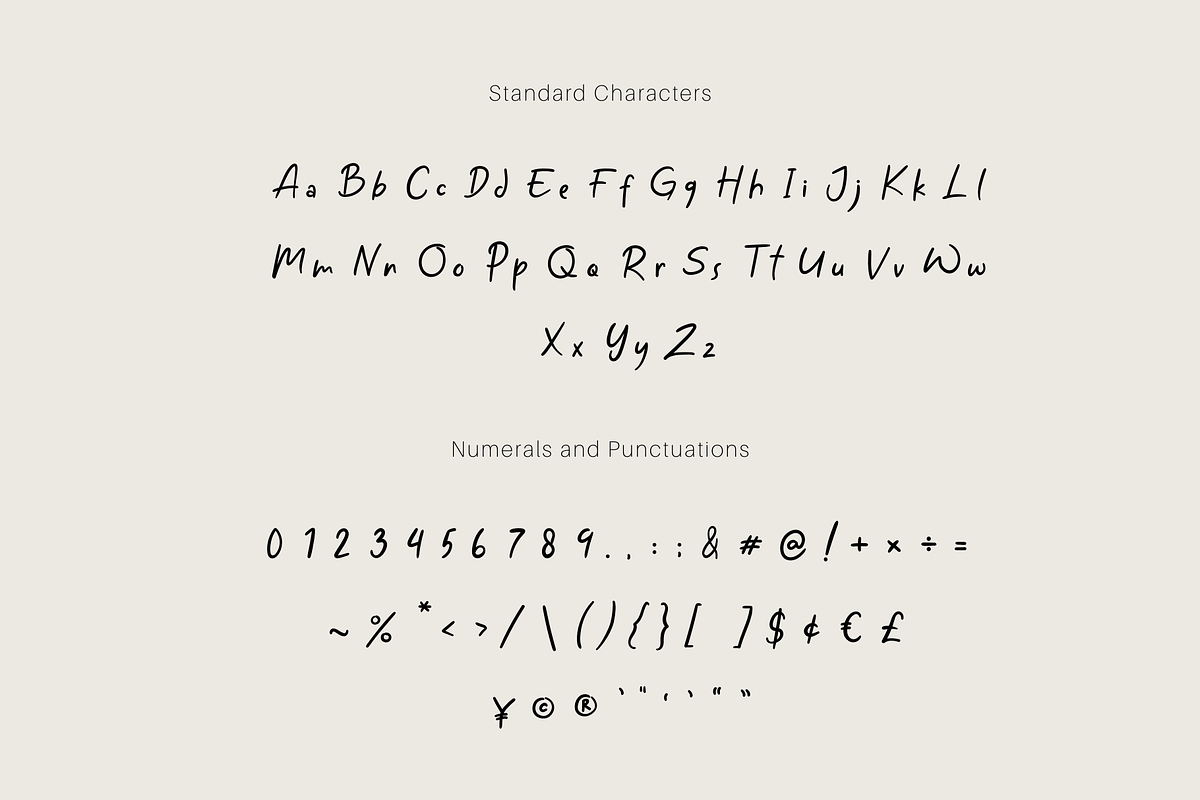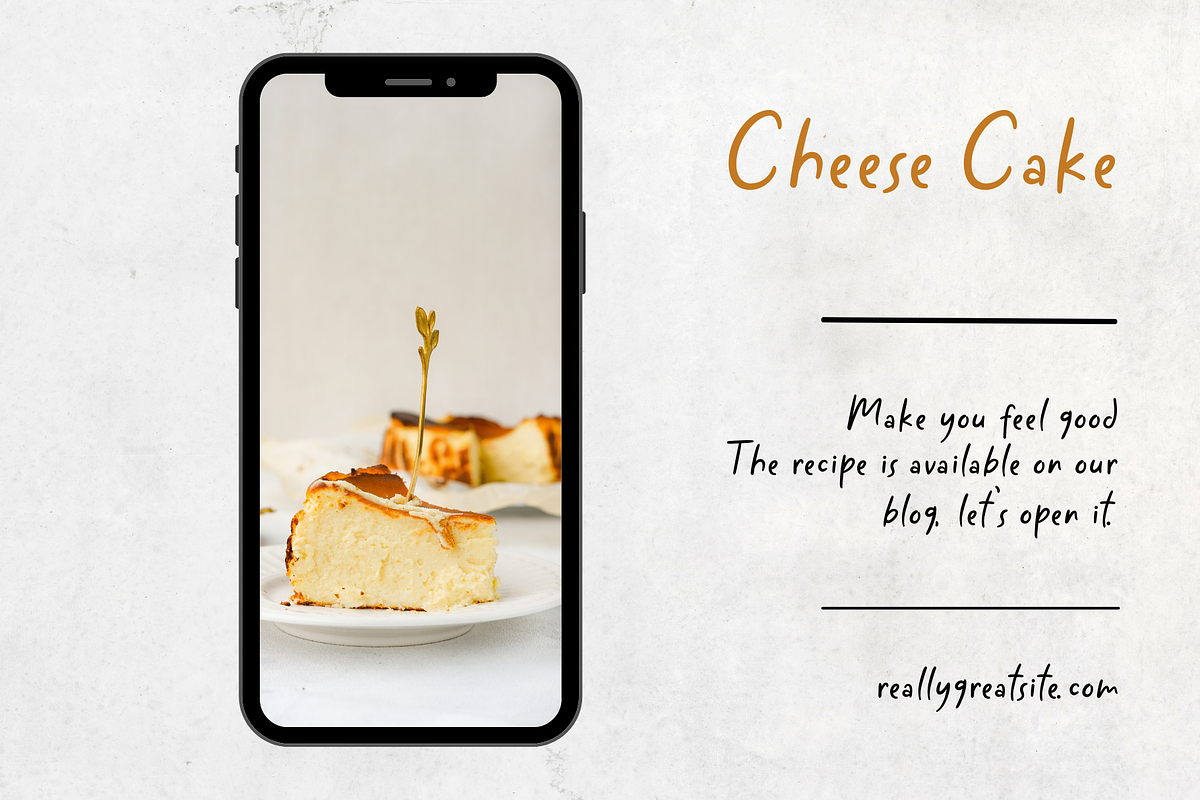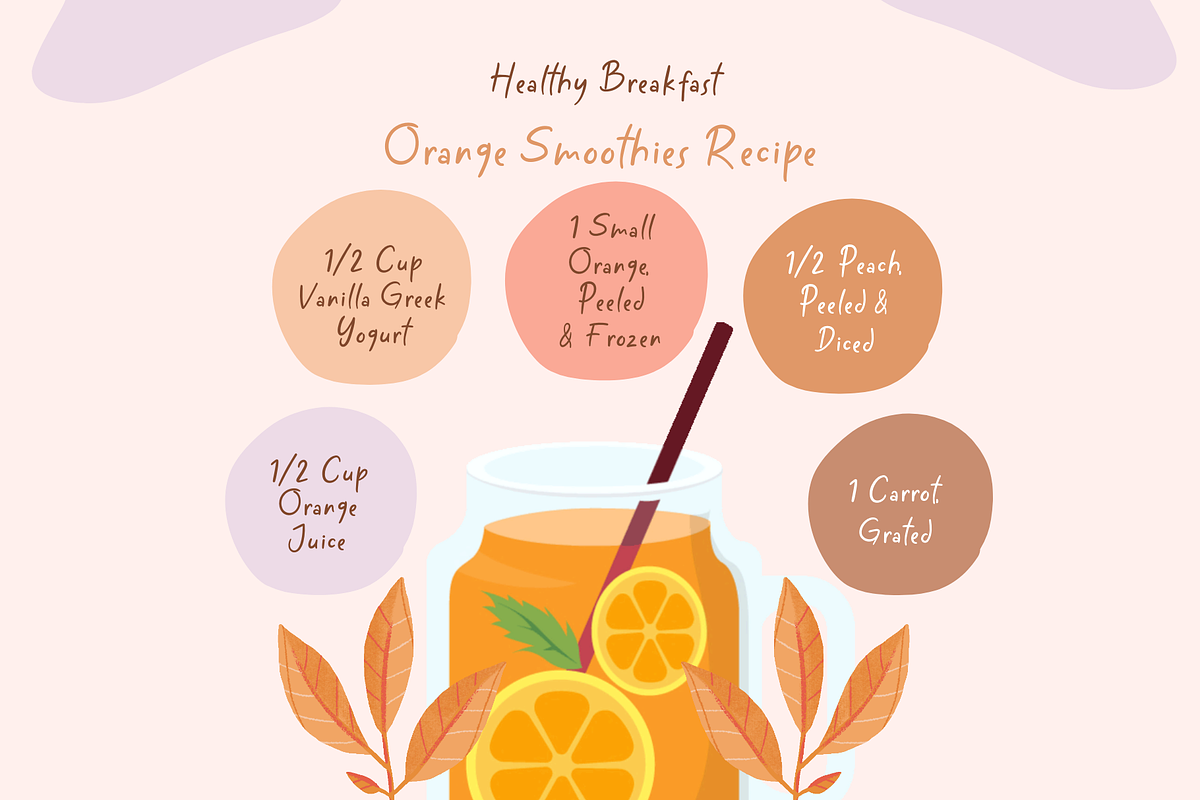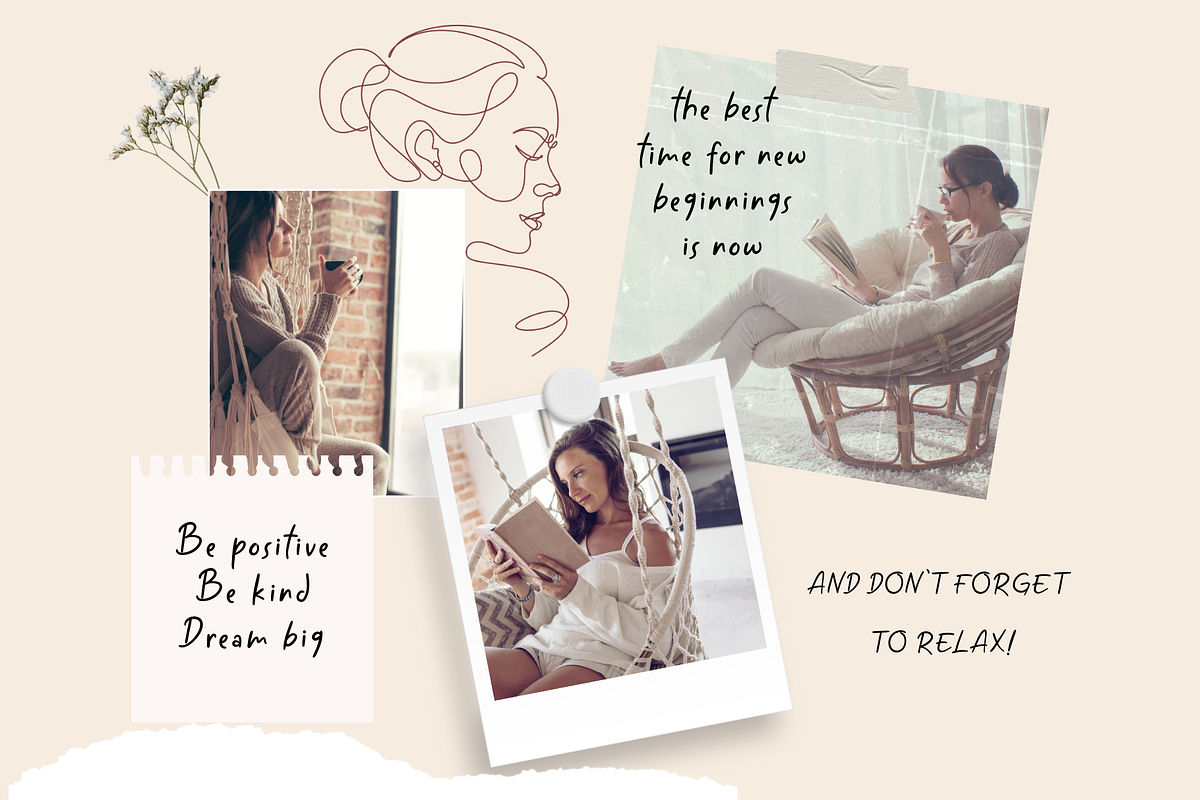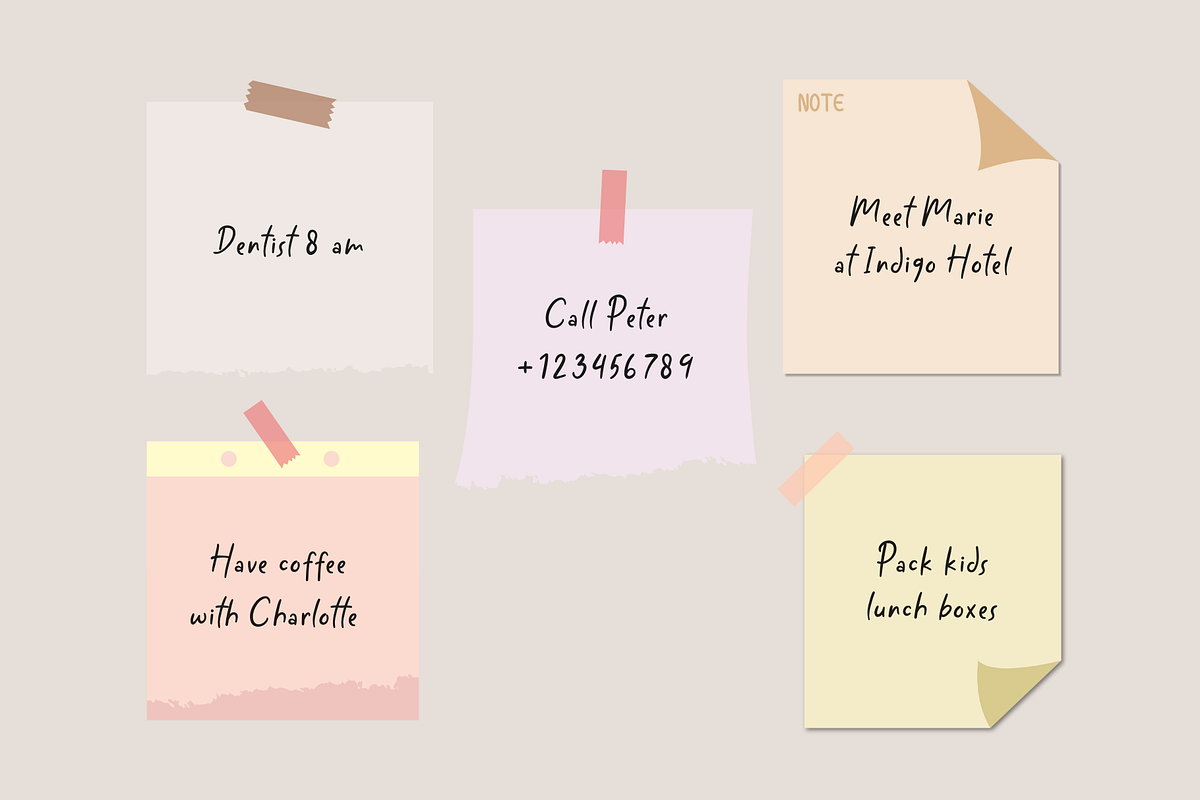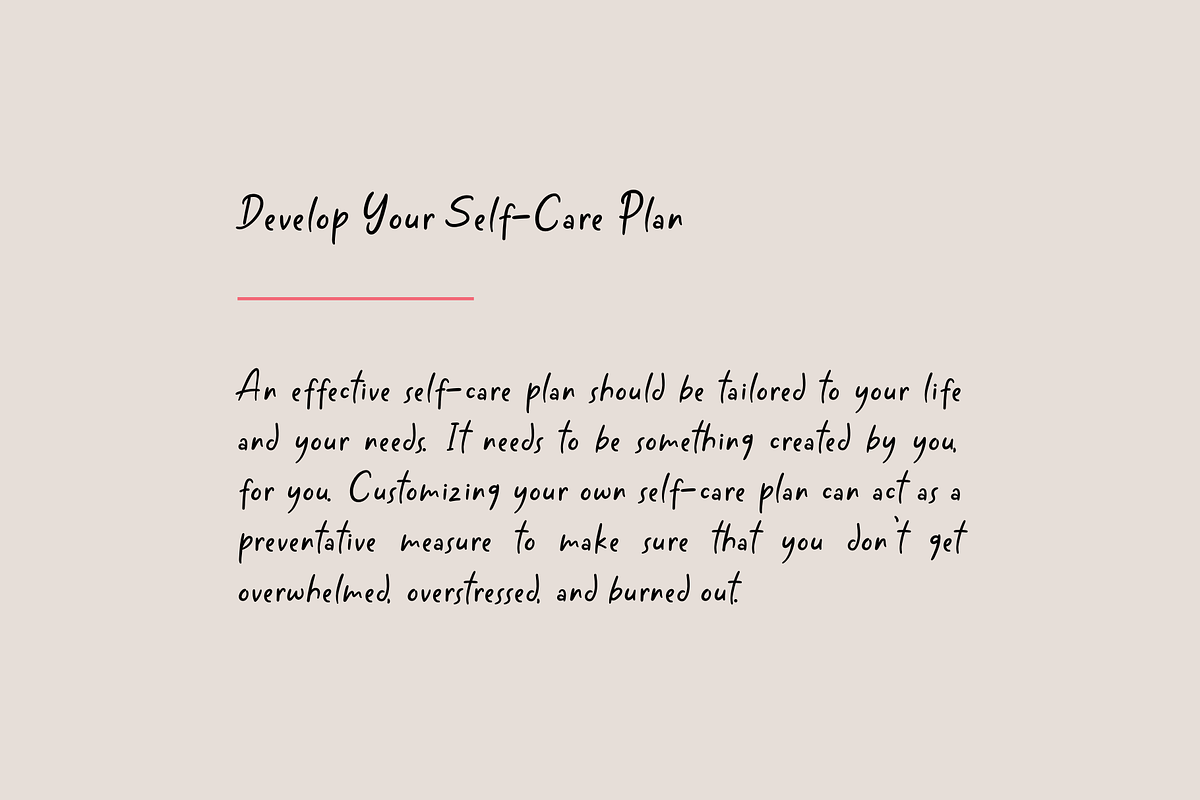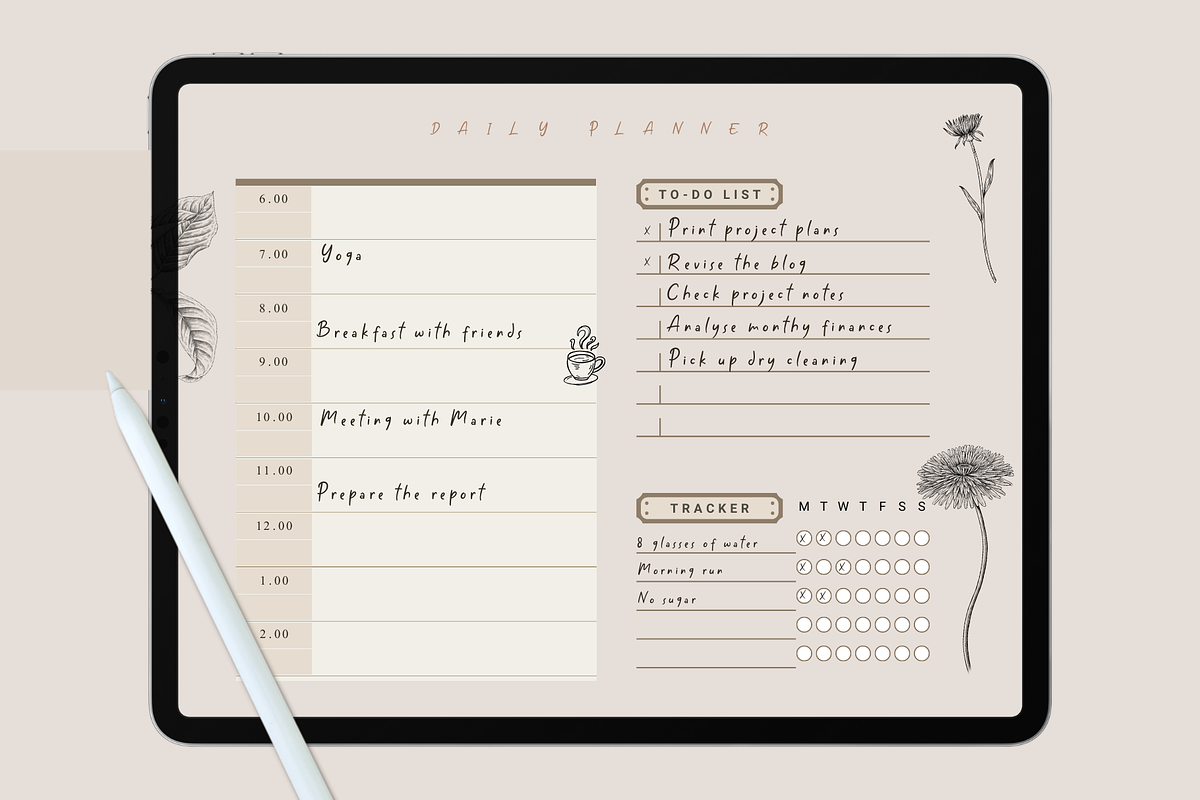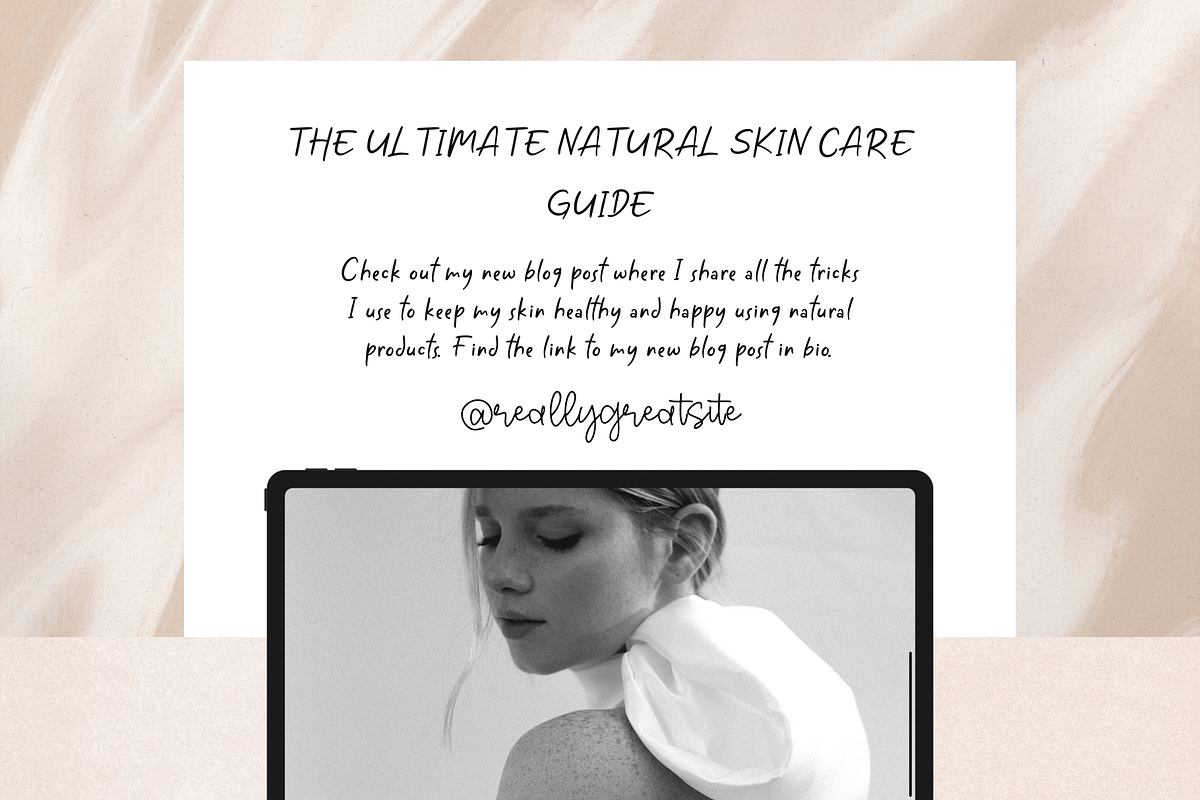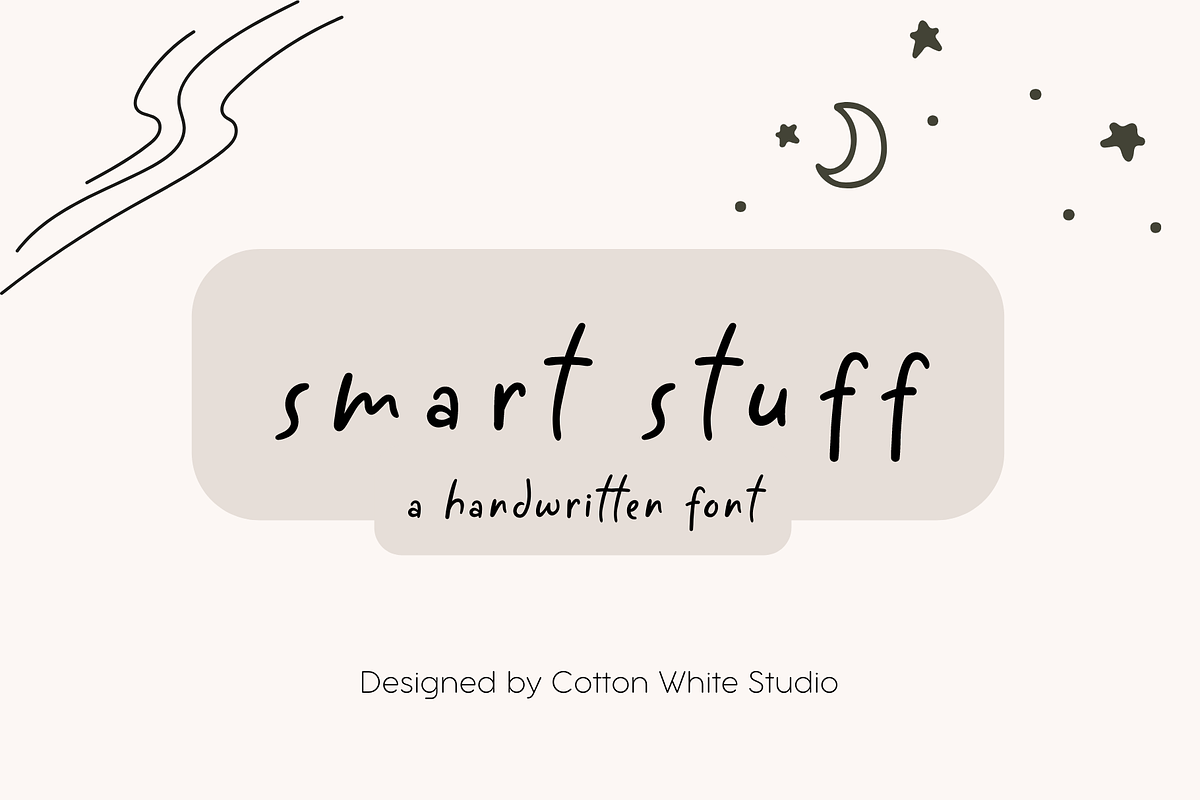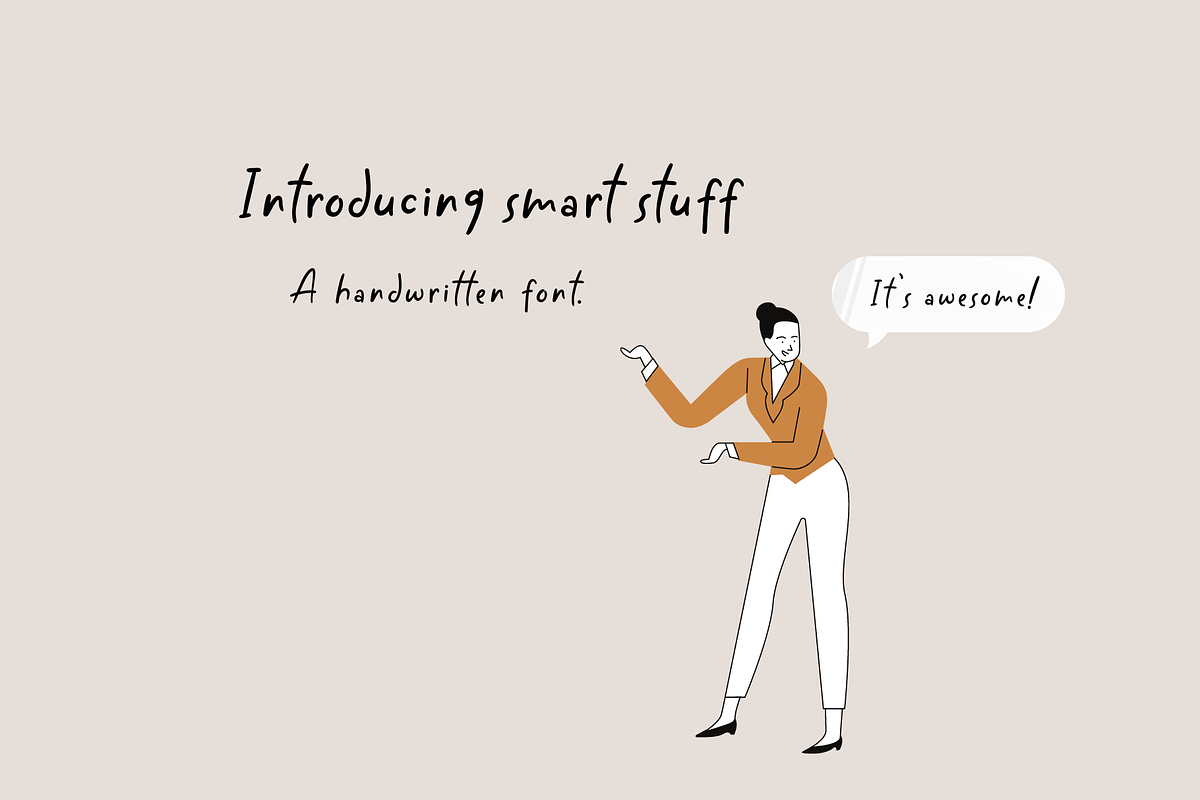
Smart Stuff
Add some sweetness to your designs with this adorable font! It's perfect for any project that needs a touch of whimsy and charm. From greeting cards and invitations to social media graphics and branding materials, our cute font will bring a playful energy to your work. This font is also prefect to spice up your digital notes! With its playful curves and delightful details, this font is sure to make your designs stand out.